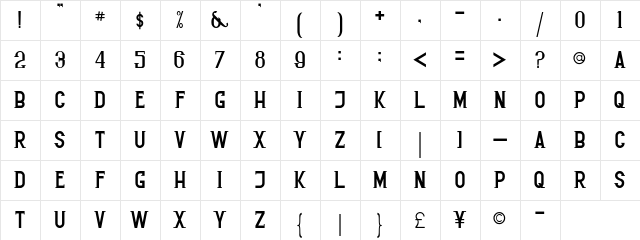
Luxurossa Regular
| Designer | Artspace 2018 |
Design Context for Luxurossa Typeface
Luxurossa is a composed and adaptable typeface that performs quietly and consistently across a wide range of design contexts.